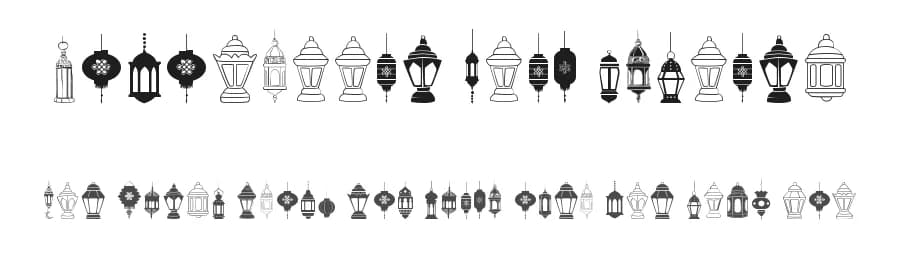
About Fotograami Lamp Islamic Font
Fotograami Lamp Islamic is a dingbat font designed by fotograami Aldousari. It includes 81 glyphs, a regular weight, TTF (TrueType) format, and 104 languages. Fotograami Lamp Islamic is free to download; check the license details on this page before commercial use. Dingbat fonts like Fotograami Lamp Islamic work best for icons, ornaments, bullet points, and decorative accents.
Fotograami Lamp Islamic Specifications
| Font Family | fotograami - lamp islamic |
| Full Name | fotograami - lamp islamic |
| PostScript Name | fotograami-lampislamic |
| Designer | FOTOGRAAMI |
Fotograami Lamp Islamic Font is a versatile dingbats font that works for both headings and body text. Pair it with a contrasting sans-serif or serif font to add visual interest and a clear distinction between titles and body copy.
Fotograami Lamp Islamic Font